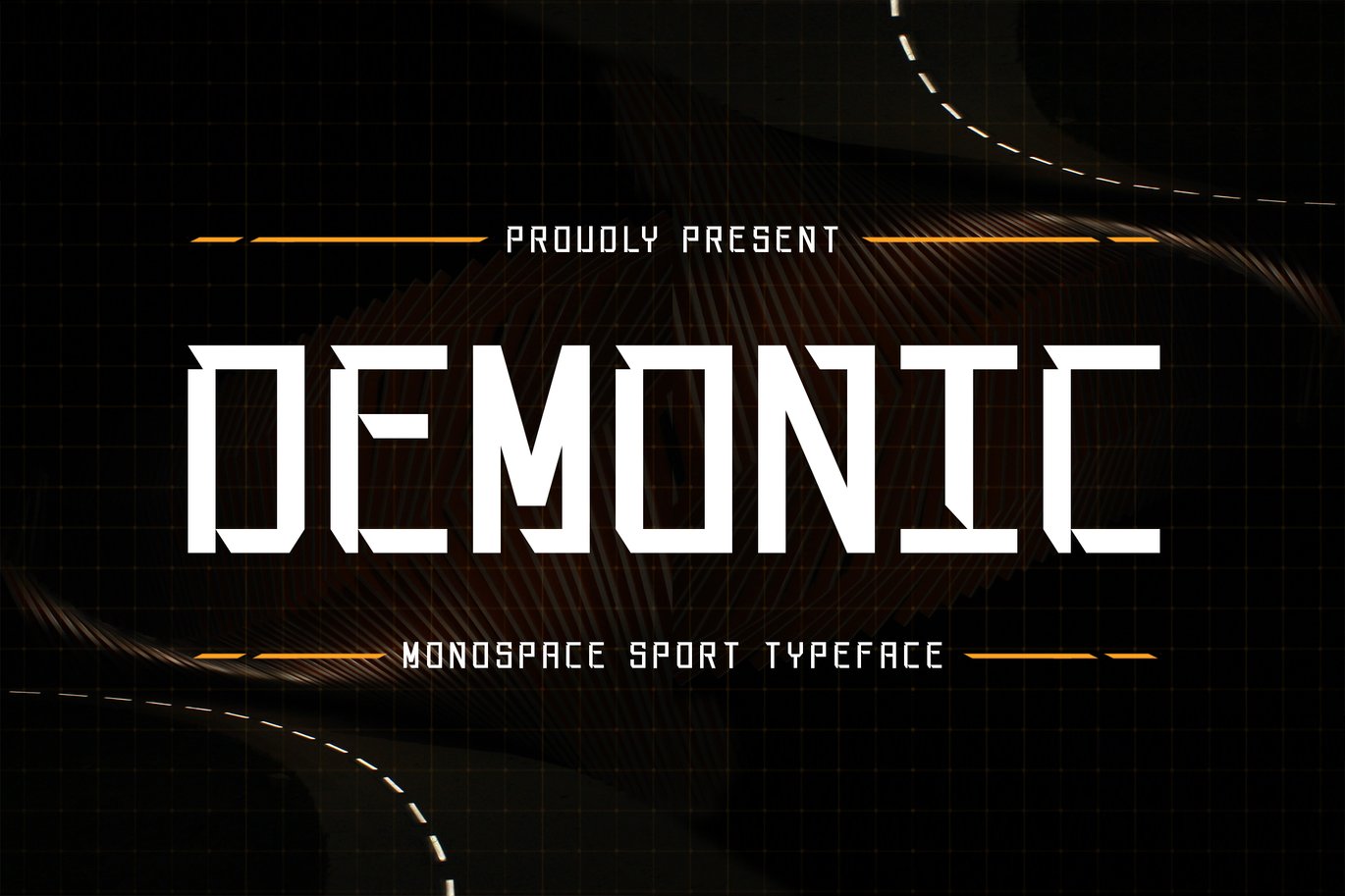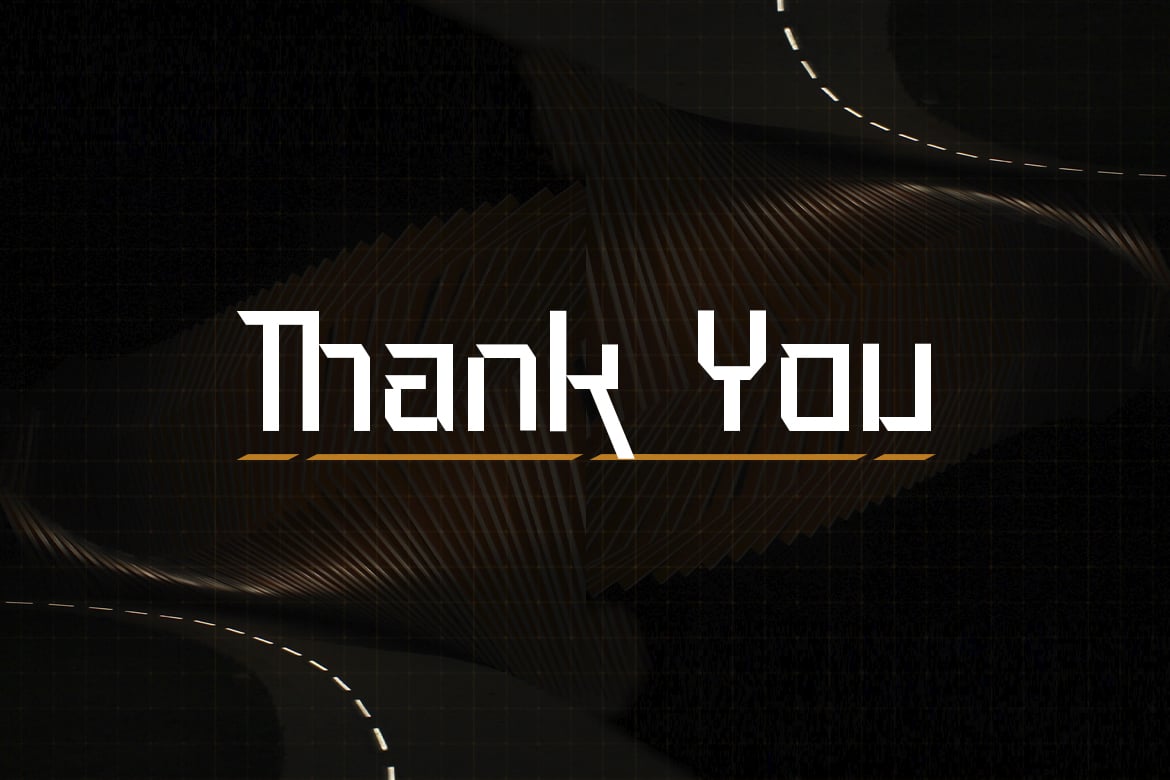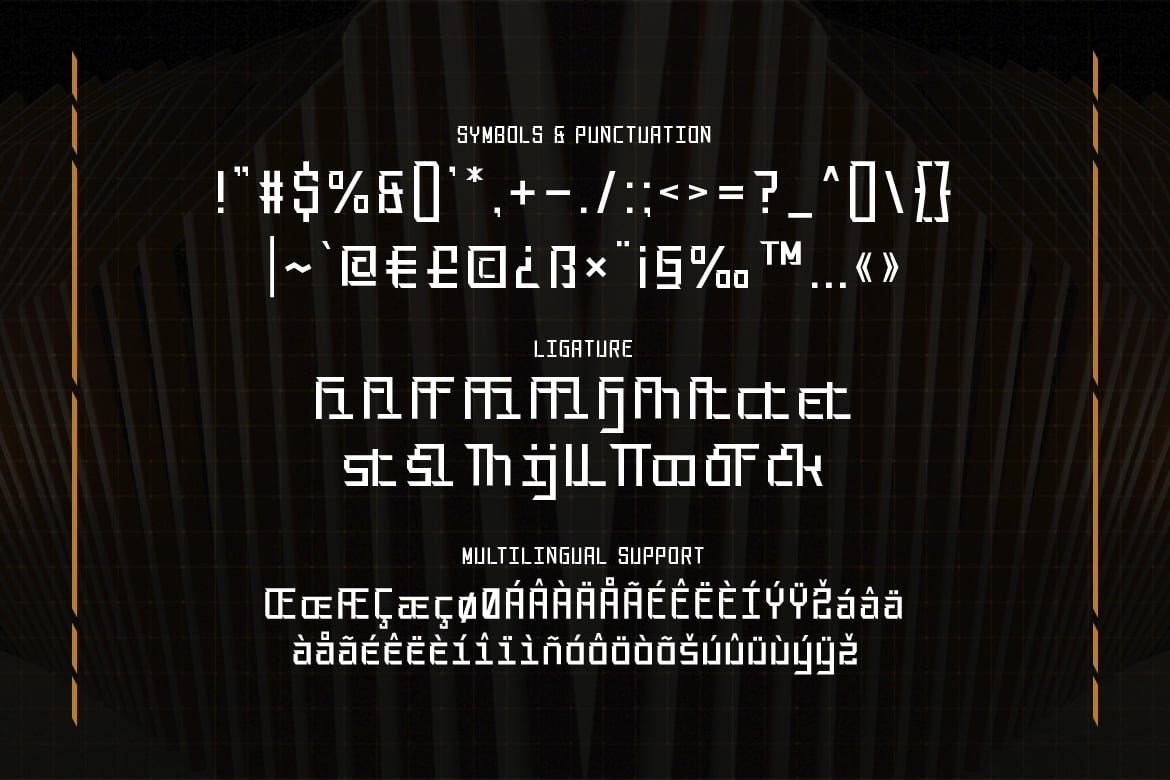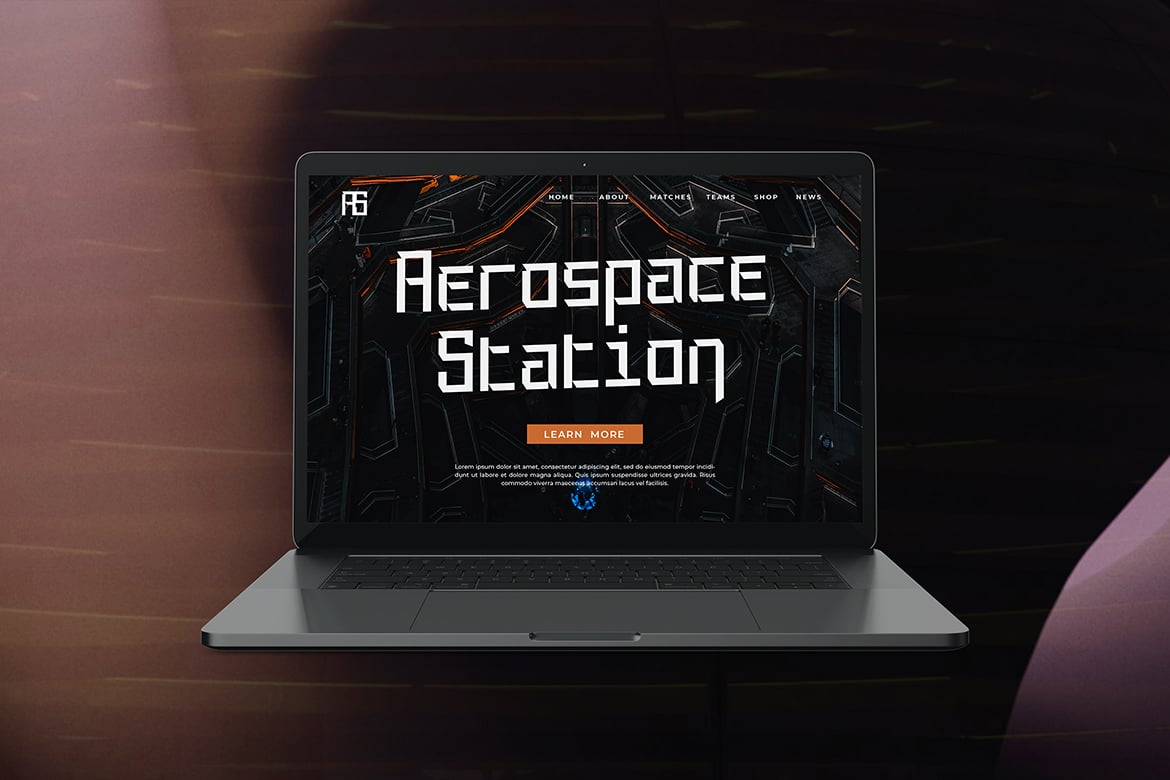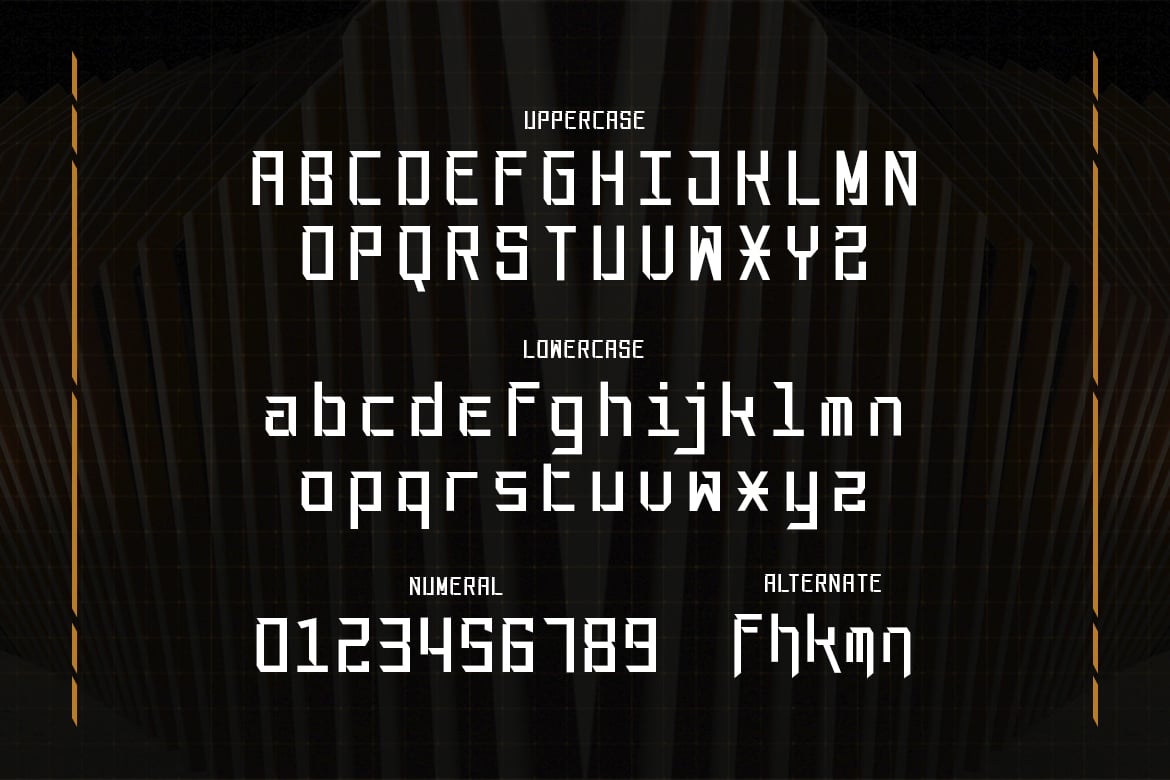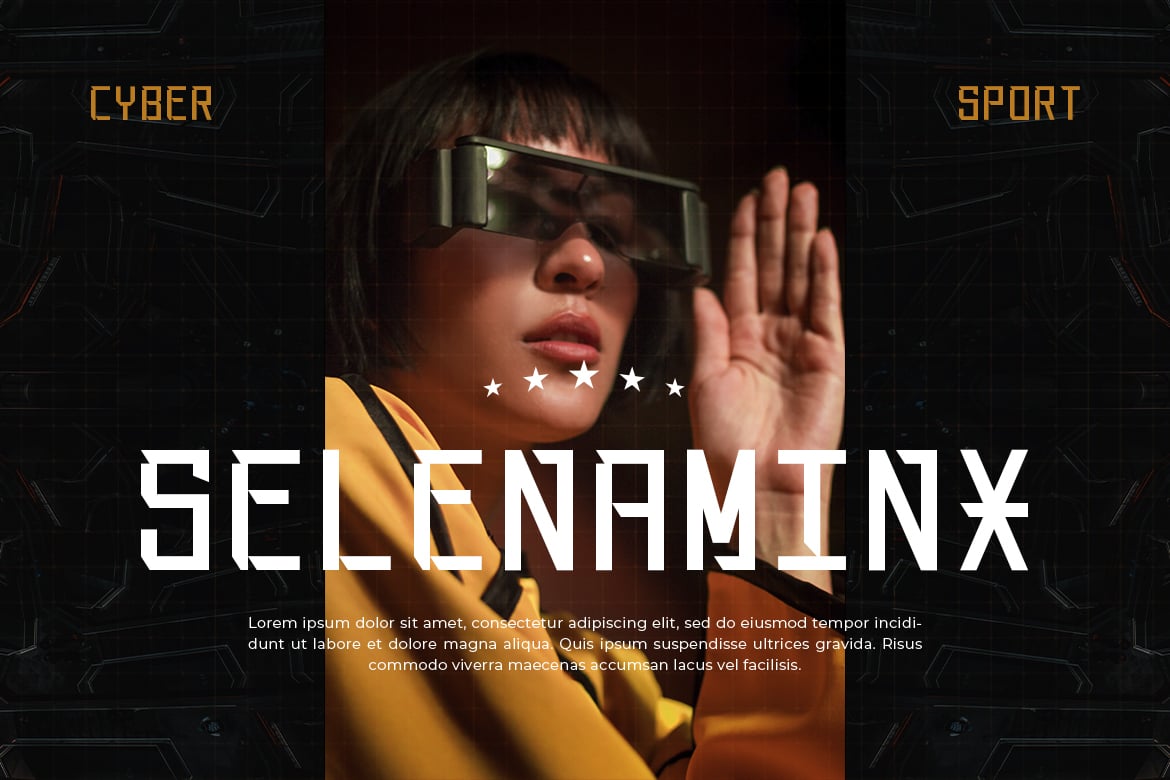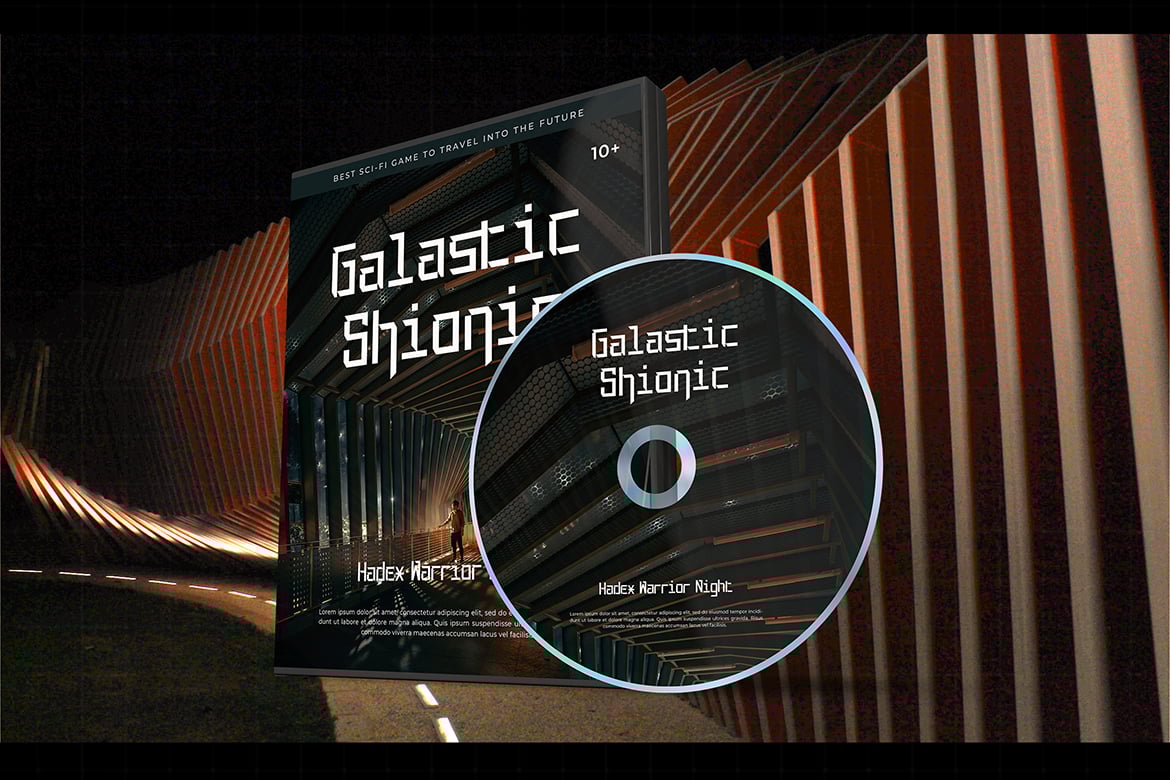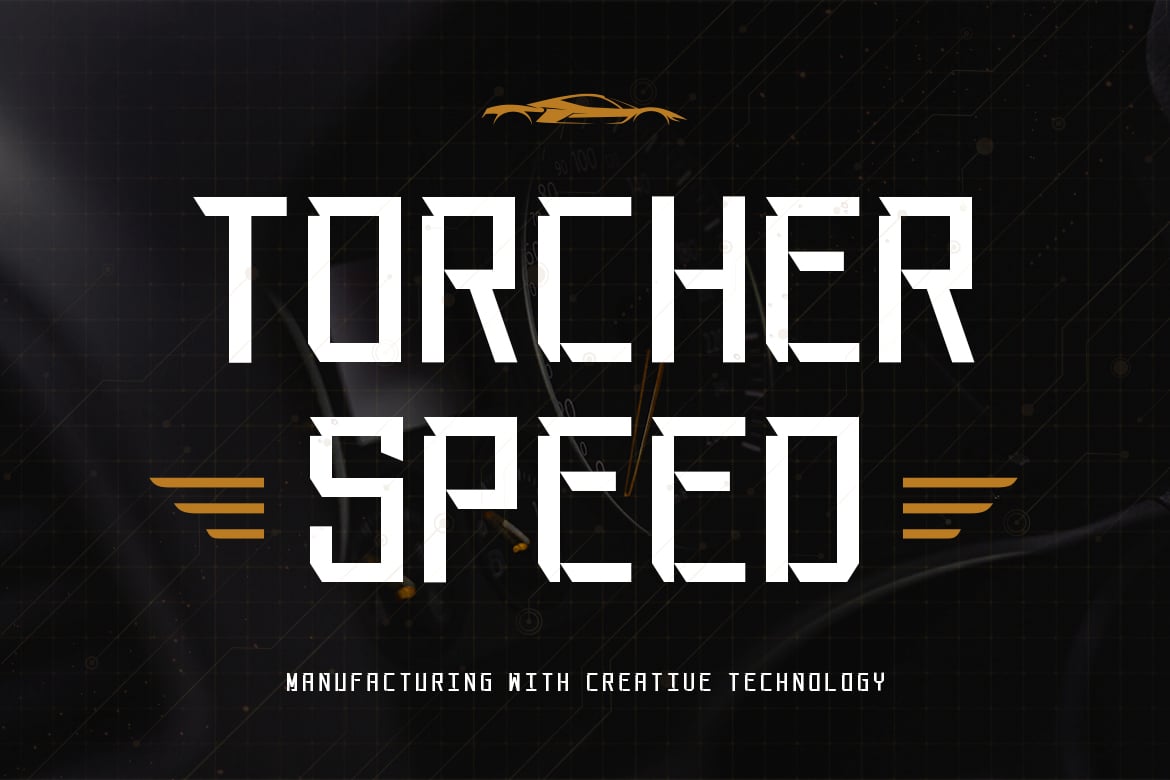
Demonic – Monospace Sport Typeface
Demonic is a unique and breathtaking monospace display font perfect for a wide variety of designs.
Add this beautiful display font to each of your creative ideas, and notice how it makes them stand out!